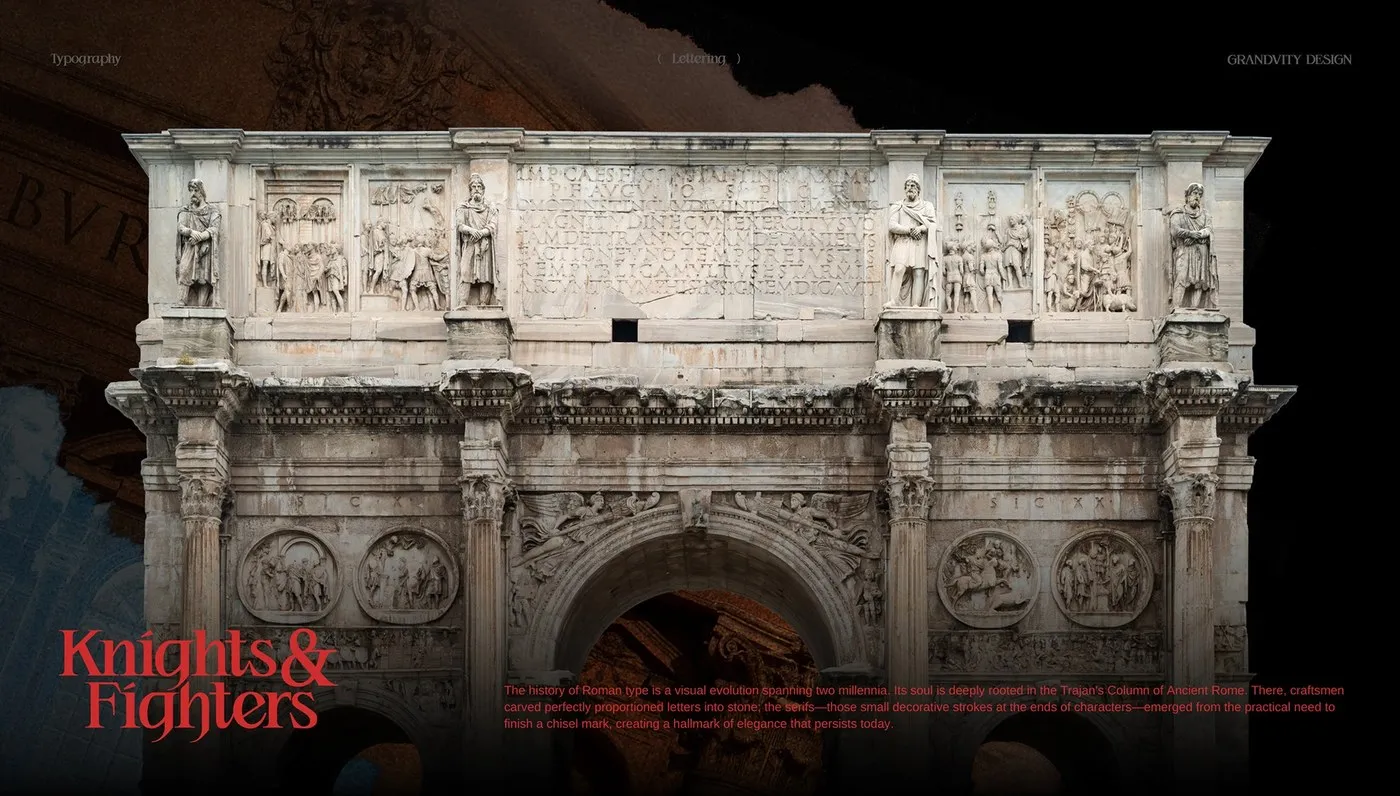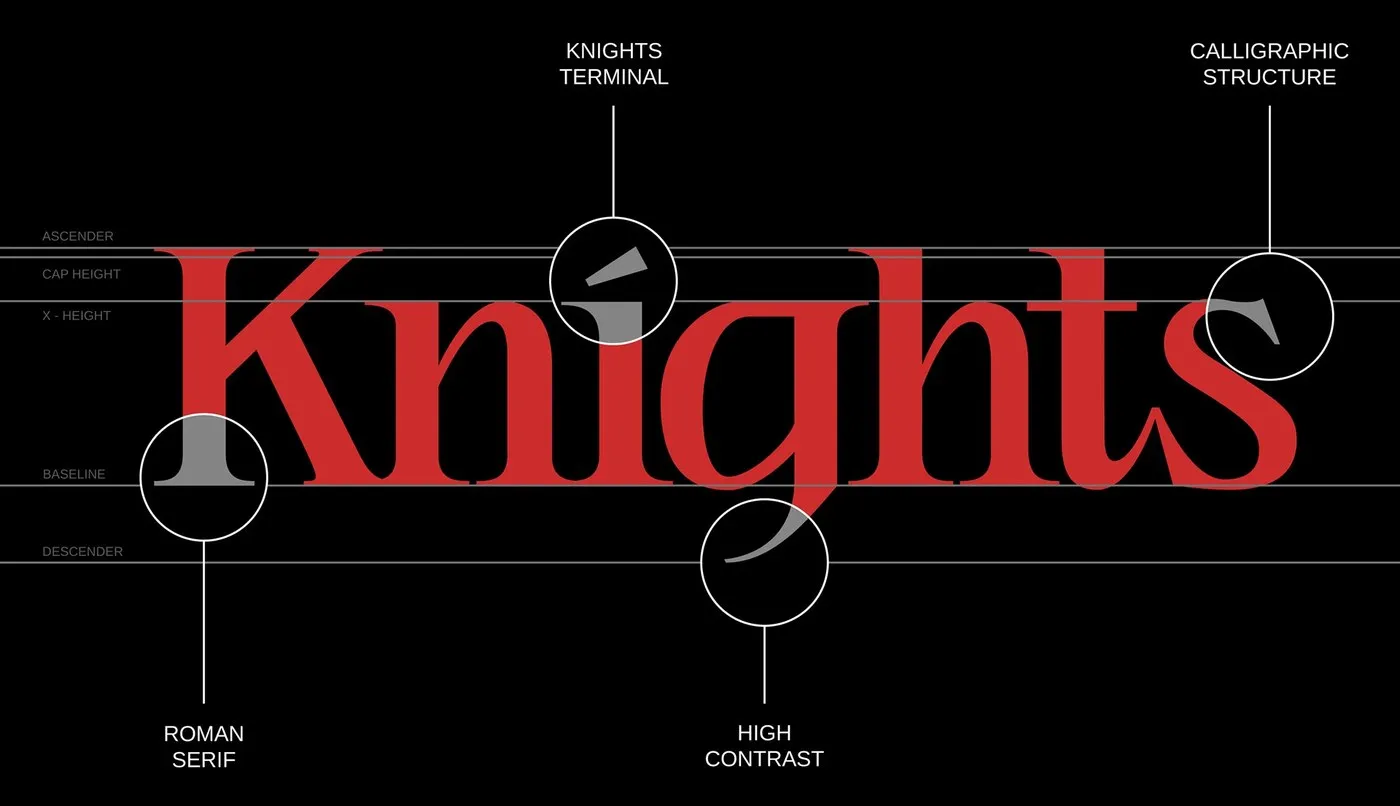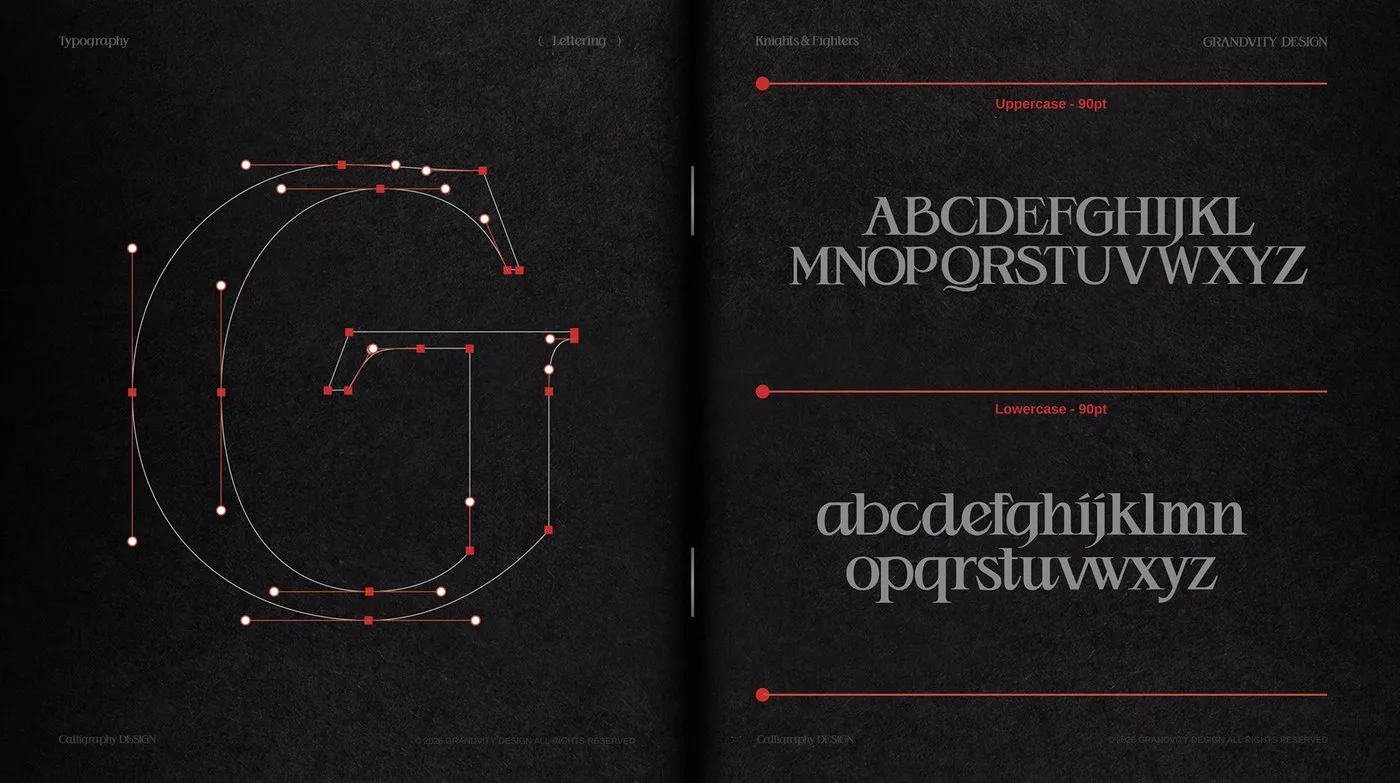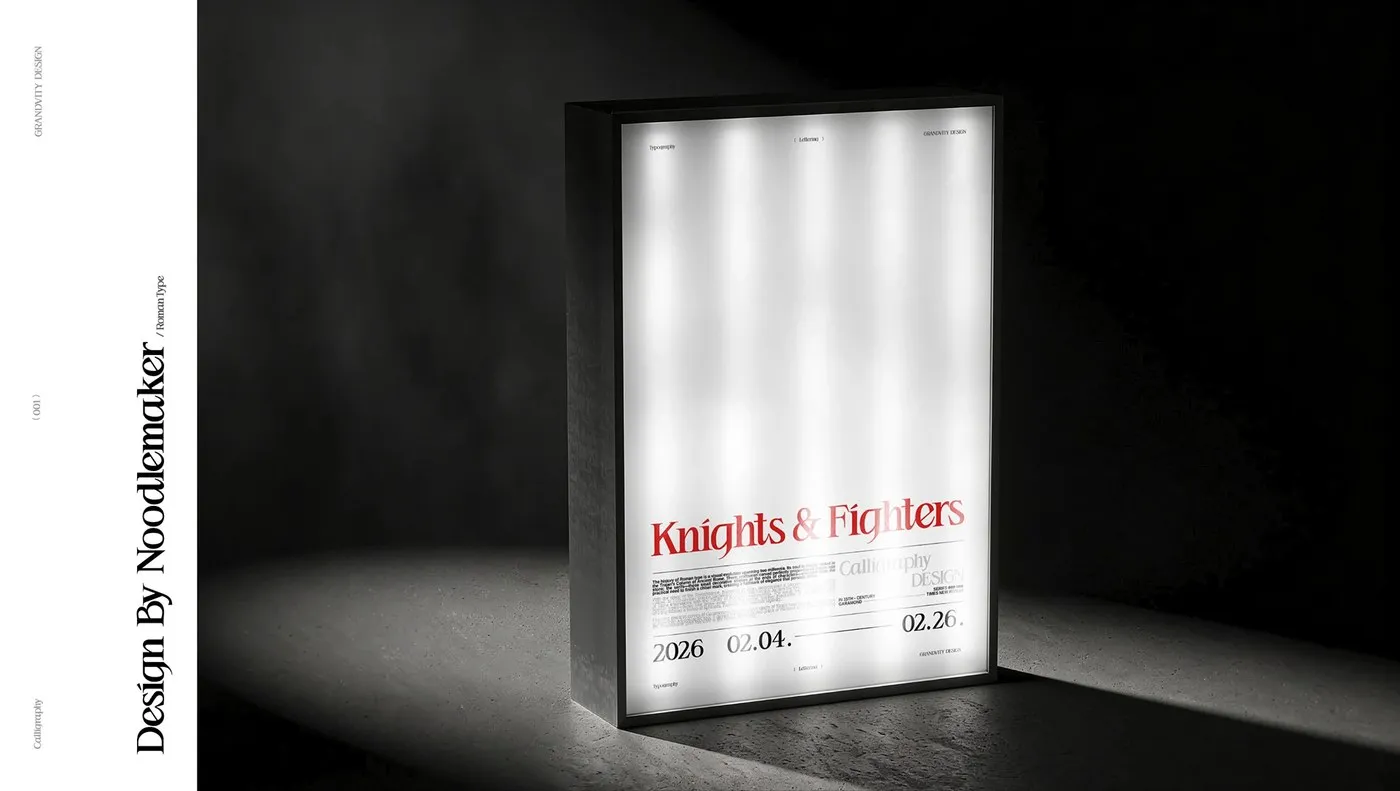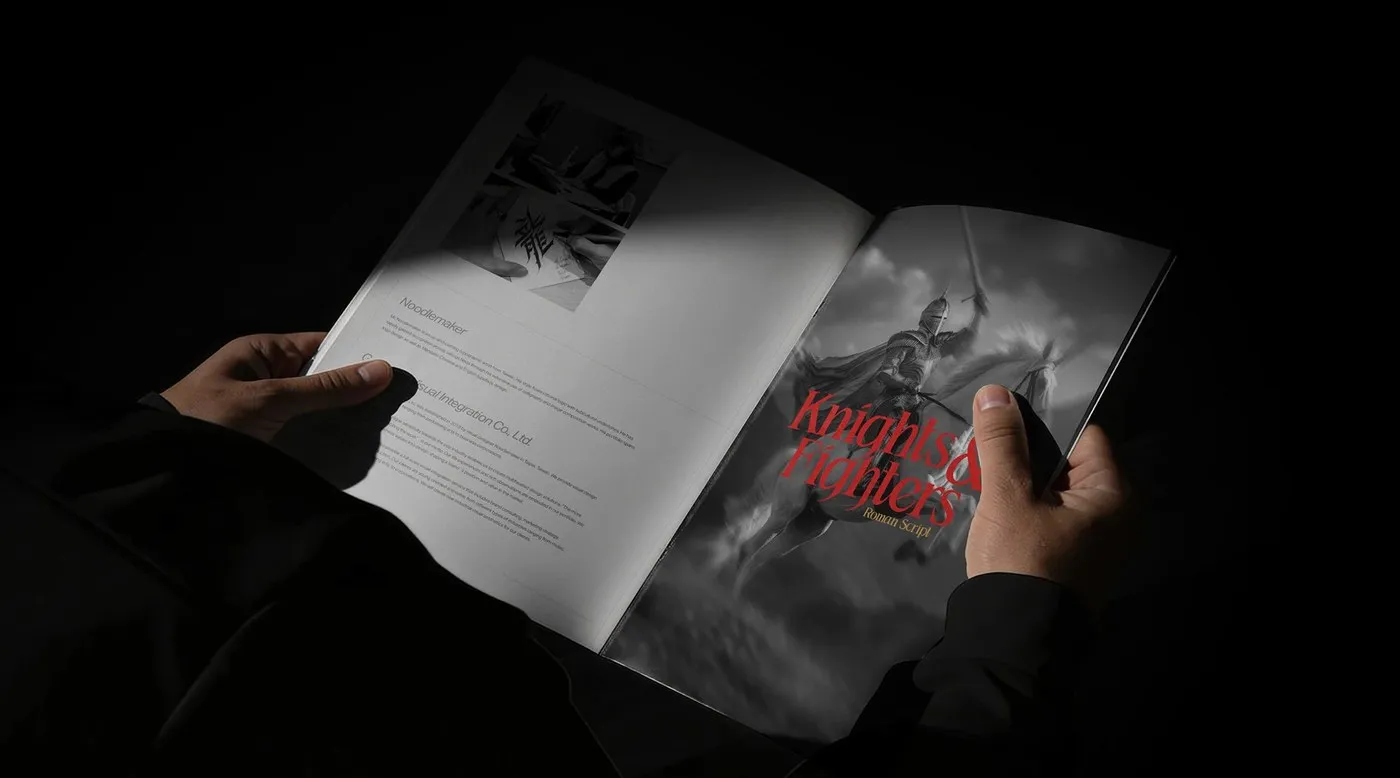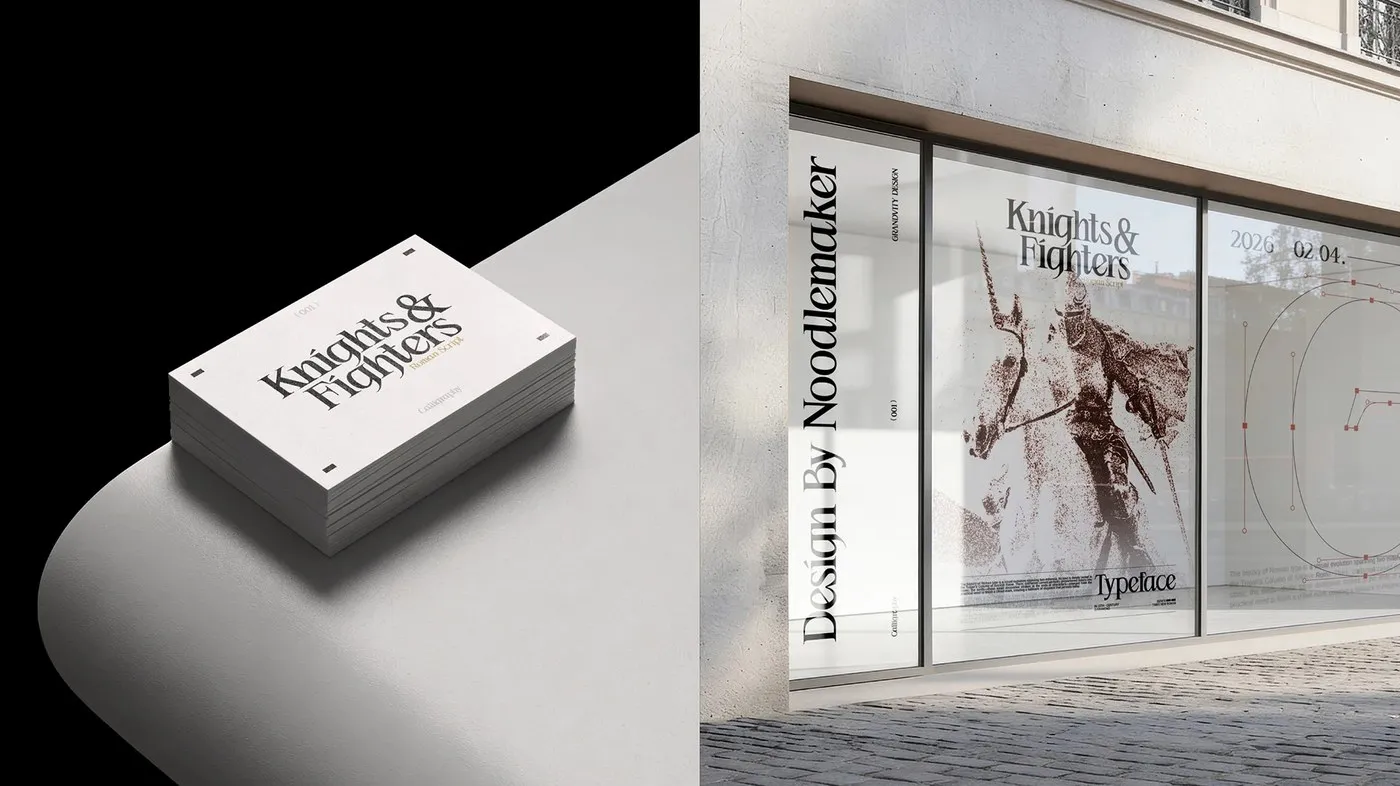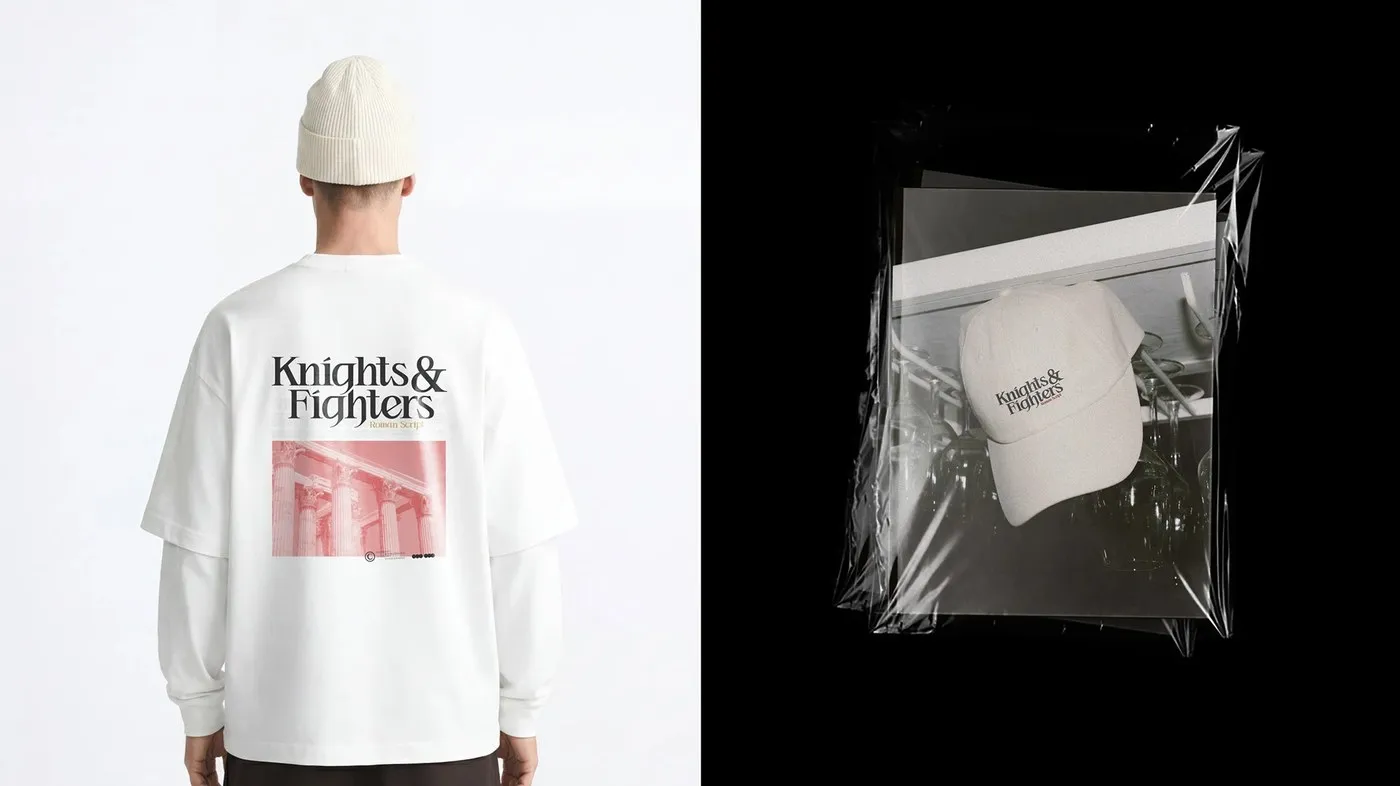
Knights & Fighters: Noodle Wang’s Bold, Edgy Spin on Roman Typography Straight out of the Noodlemaker creative lab, type designer Noodle Wang has just dropped Knights & Fighters—a super cool project that blends classic geometric proportions with fresh, modern subculture vibes. Taking inspiration from the iconic 113 AD Trajan Column inscriptions, this isn’t just another historical revival. Instead, Noodle Wang completely deconstructed traditional Roman letterforms, infusing them with sharp, aggressive angles. Heavy vertical stems reminiscent of solid iron armor clash beautifully against ultra-delicate hairlines and razor-sharp serifs.
The real showstopper here is the extreme contrast paired with punchy, triangular serifs. Hints of Nordic Blackletter are woven throughout, creating unexpected rhythm shifts and bringing out gorgeous negative space inside glyphs like O and C. Plus, the diagonal strokes on K, R, and X end in crisp, chiseled terminals, giving every single character an incredibly grounded presence on the baseline.
To bring the design to life, Noodle Wang teamed up with Grandvity Design to apply the typeface across various real-world applications. Whether embossed via letterpress on raw paper or stitched onto apparel, those vector lines stay razor-sharp. Crafted with specialized type tools alongside Adobe Illustrator and InDesign, Knights & Fighters is a great example of how historic typography continues to inspire fresh design experiments.
Knights & Fighters: Bộ Font Tiếng La Mã Mang Tinh Thần Đột Phá Của Noodle Wang
Dưới xưởng sáng tạo Noodlemaker, nhà thiết kế type Noodle Wang đã trình làng bộ font Knights & Fighters. Dự án này là một thử nghiệm độc đáo khi kết nối các tỷ lệ hình học cổ điển với tinh thần hiện đại của các subculture. Lấy cảm hứng từ chữ khắc trên cột Trajan từ năm 113 AD, Noodle Wang không chọn cách phục dựng nguyên bản mà tháo gỡ cấu trúc chữ La Mã truyền thống để đưa vào những đường nét đầy góc cạnh. Những nét dọc dày dặn gợi đến các bộ giáp sắt chắc chắn, đối lập với nét hairline siêu mảnh và phần chân chữ serif sắc lẹm.
Điểm nhấn của Knights & Fighters nằm ở độ tương phản cực đại và phần chân chữ hình tam giác đầy dứt khoát. Tác giả còn đan xen các đường nét mang đậm dấu ấn Blackletter Bắc Âu, tạo nên những nhịp chuyển hướng đột ngột và làm nổi bật không gian âm (negative space) bên trong các chữ cái như O hay C. Các nét chéo của K, R, X kết thúc bằng đường cắt vát như được đục đẽo tỉ mỉ, giúp từng ký tự đứng rất vững vàng trên baseline.
Dự án có sự hợp tác từ Grandvity Design để đưa thiết kế lên nhiều chất liệu thực tế khác nhau. Dù thể hiện qua kỹ thuật in dập nổi (letterpress) trên giấy thô hay thêu lên trang phục, các đường nét vector vẫn giữ nguyên độ sắc nét. Được hoàn thiện nhờ sự hỗ trợ của các phần mềm làm type chuyên dụng cùng Adobe Illustrator và InDesign, Knights & Fighters cho thấy các dạng chữ lịch sử vẫn là nguồn chất liệu giàu tiềm năng cho những thử nghiệm thiết kế mới.